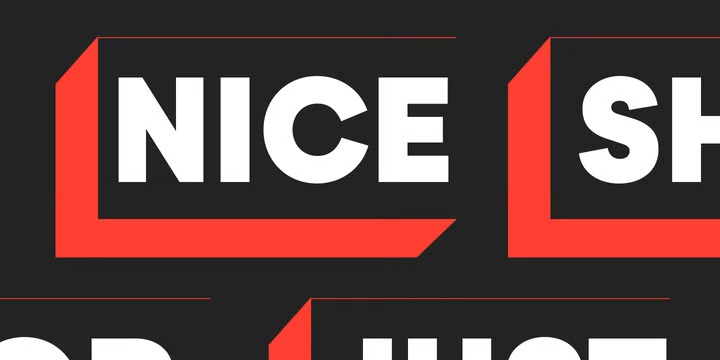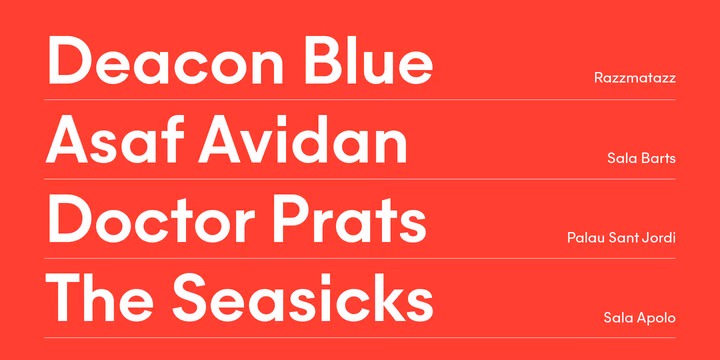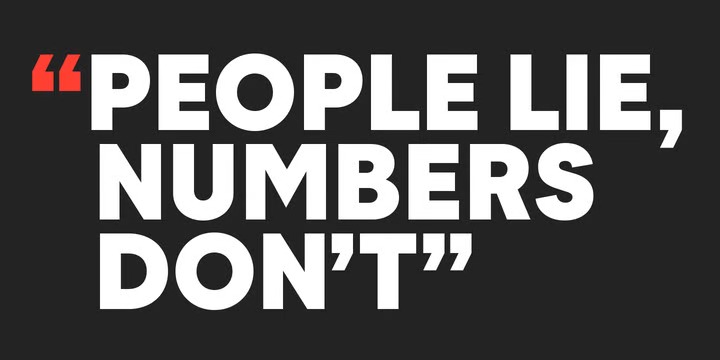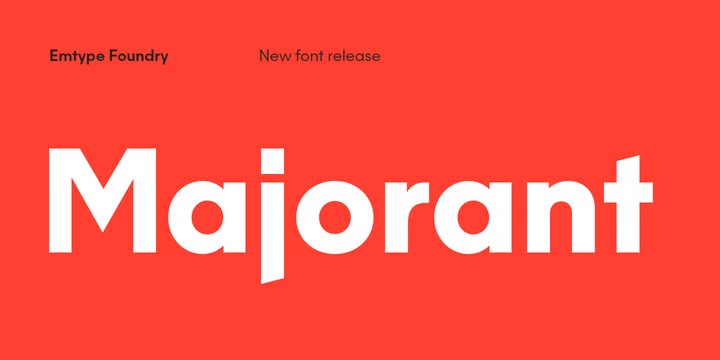
Majorant Sans Serif Font is a modern grotesque font, it could be described as a neo-grotesque with hints of geometric shapes. Its wide range of weights makes it a multipurpose family. The extreme weights work as a display typeface, from the mathematical rigour of the UltraThin to the expressive refinement of the Black. Thanks to the several alternates included, the font offers multiple personalities. From sharp and audacious in the default version, to the soft and classic in the stylistic sets.